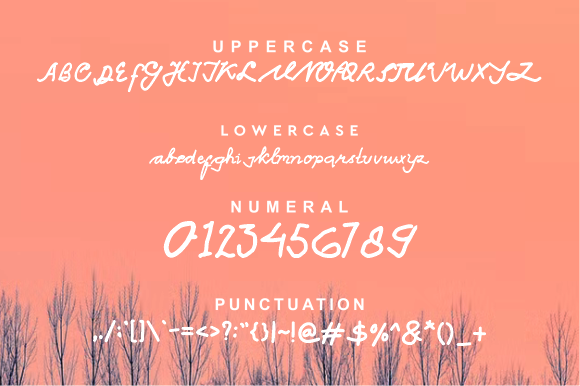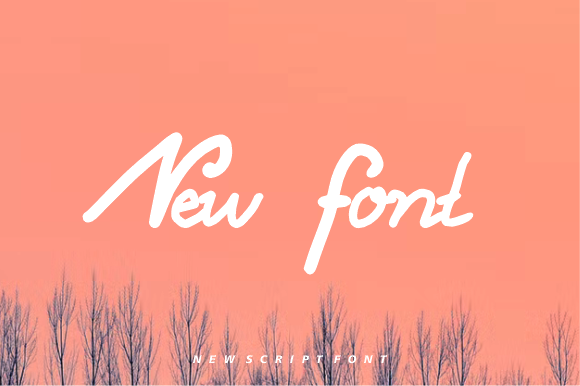
Hasar Astra Font
db-ku.com - Script & Handwritten -- Hasar Astra is a clean and delicate script font. It will look stunning on any poster, flyer or print.